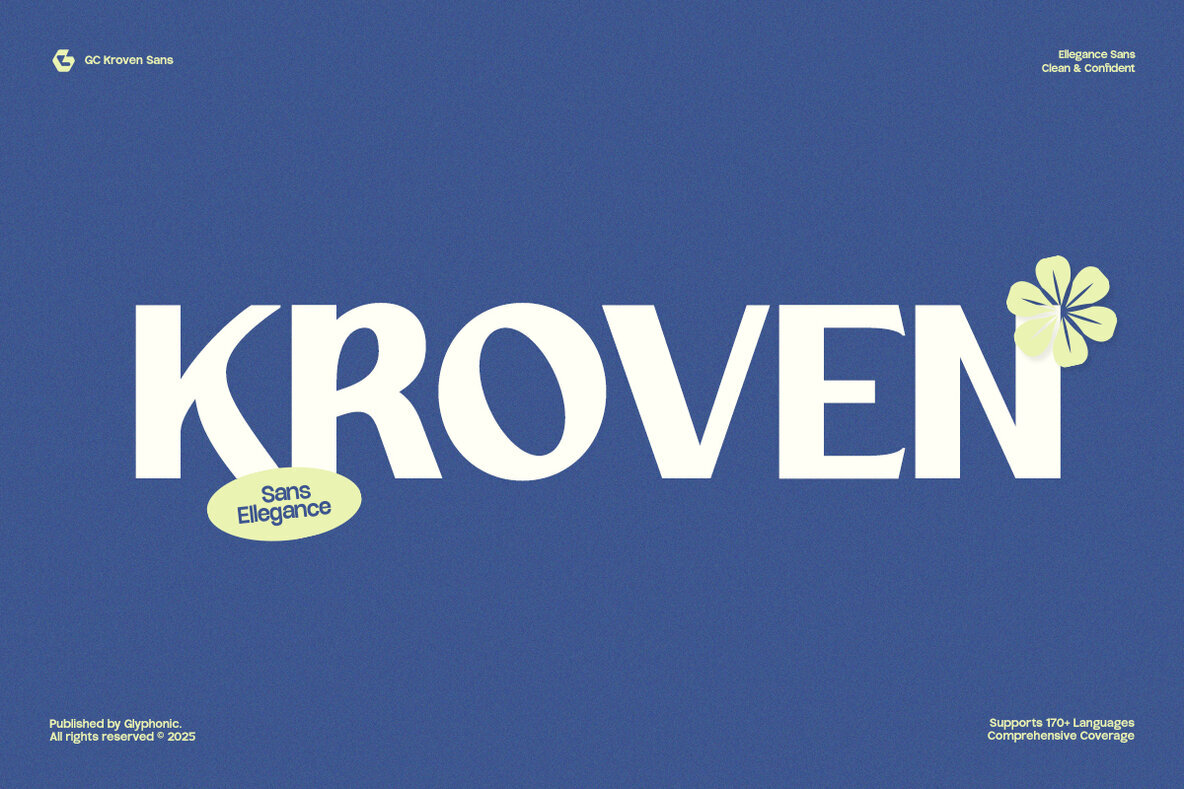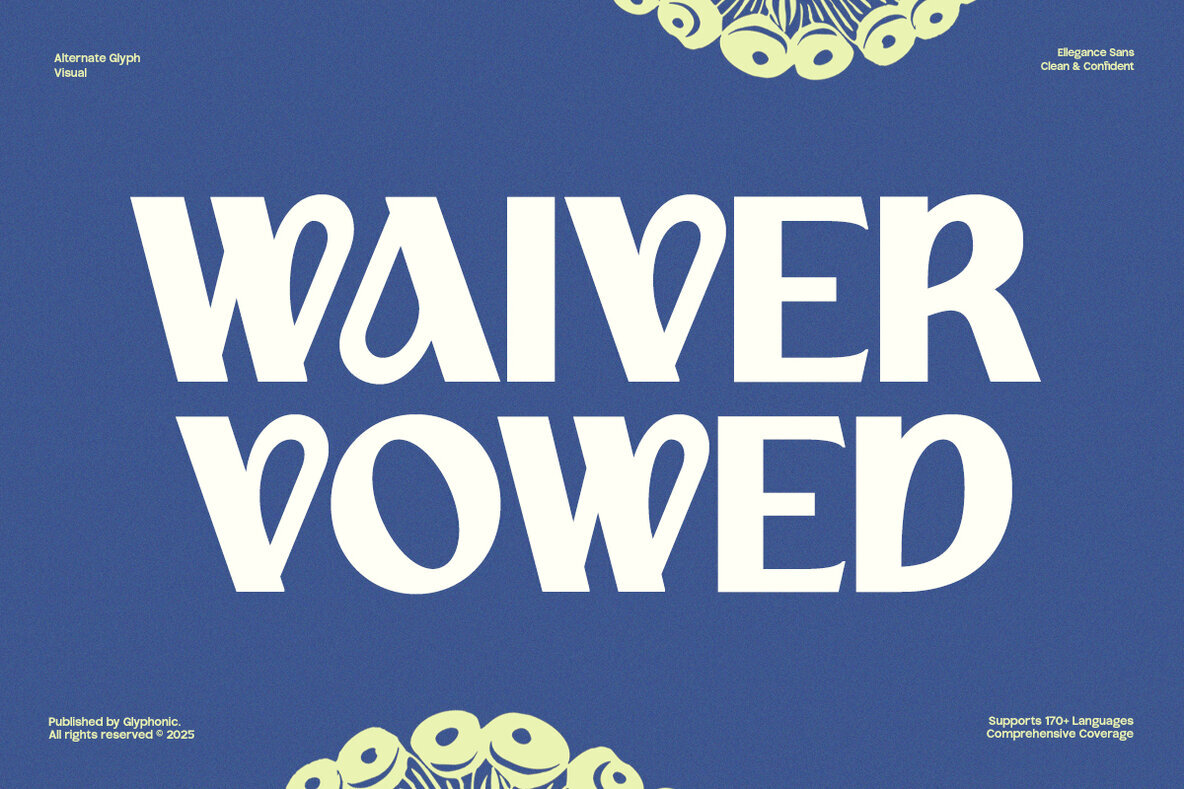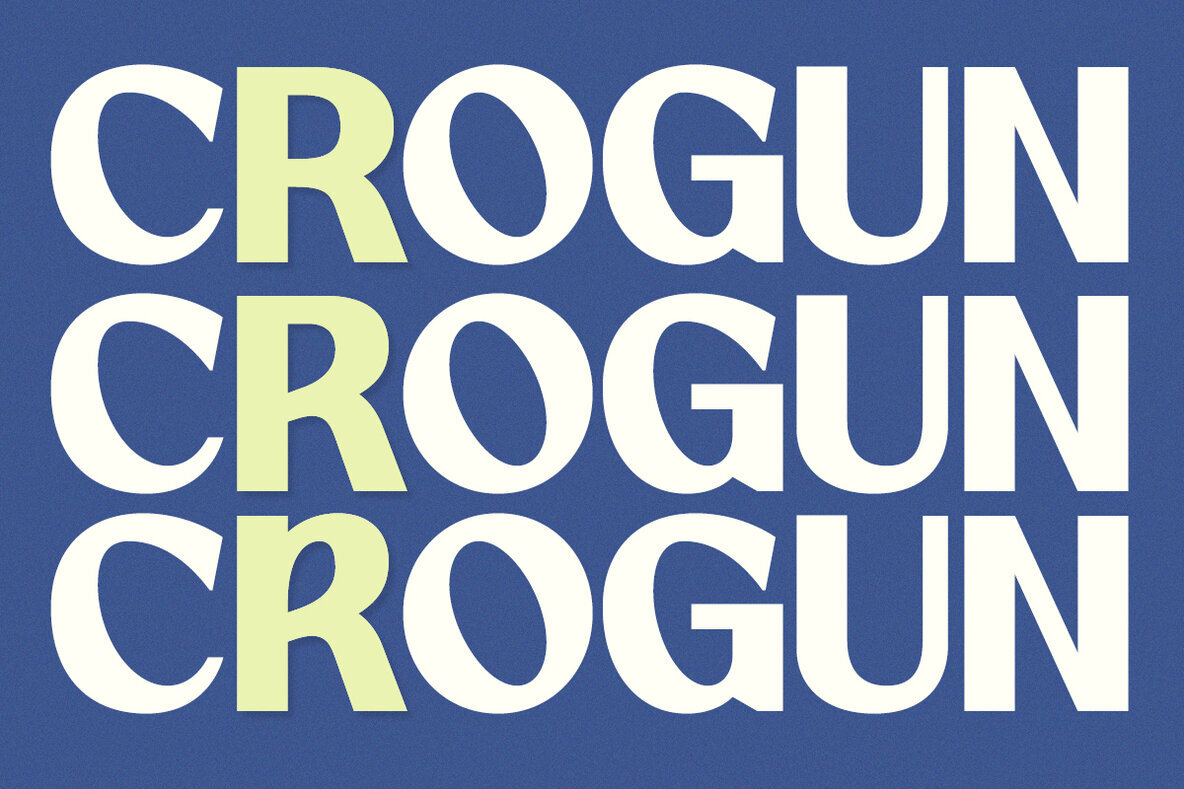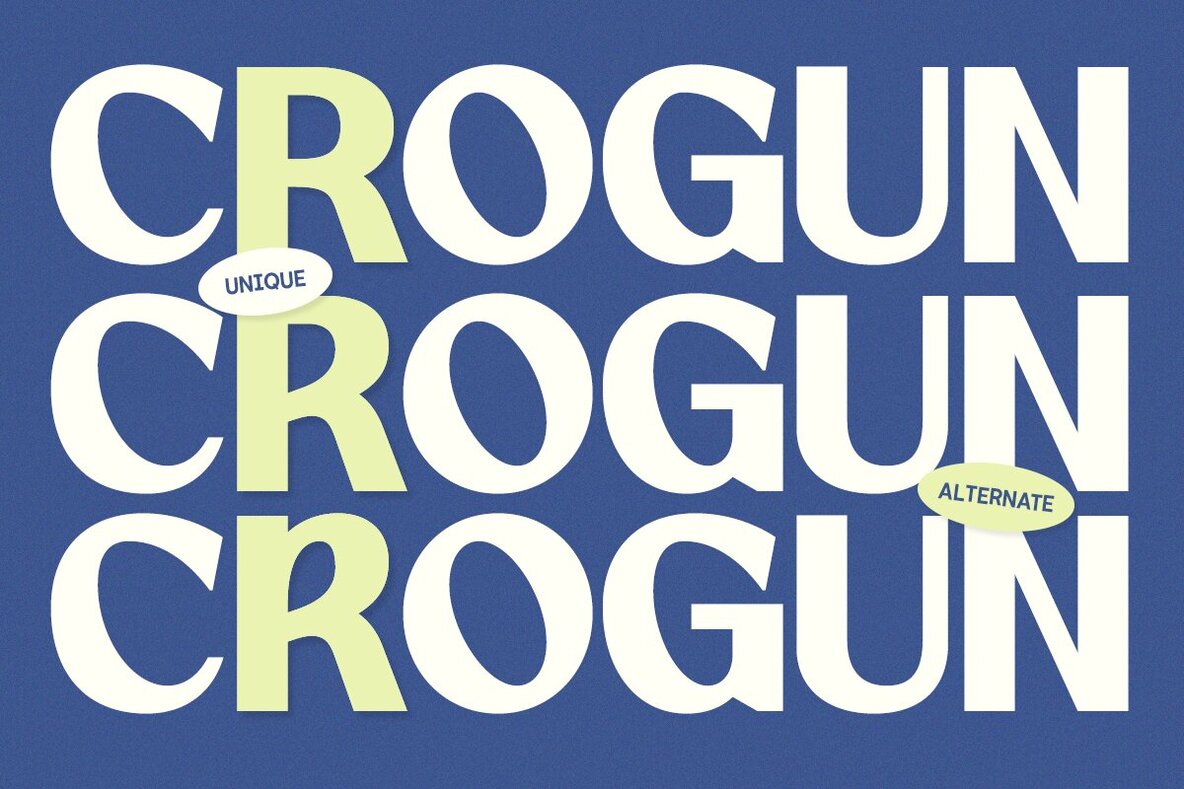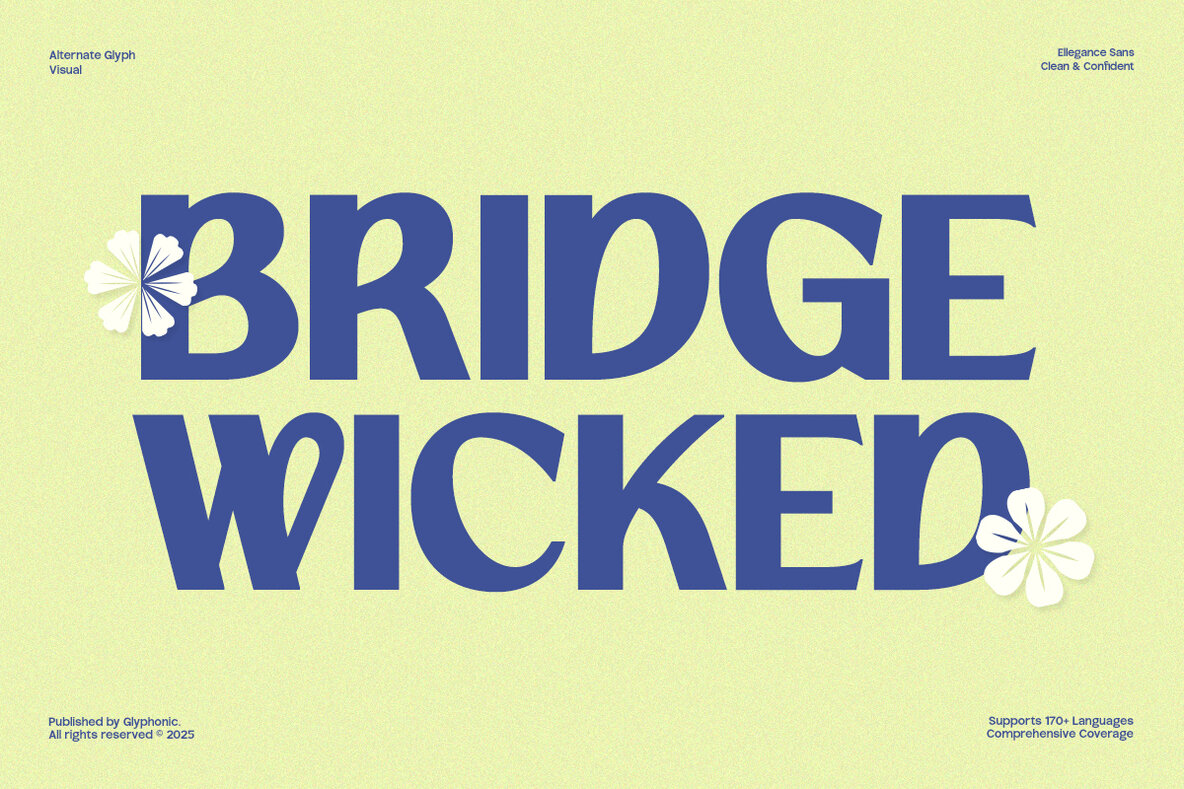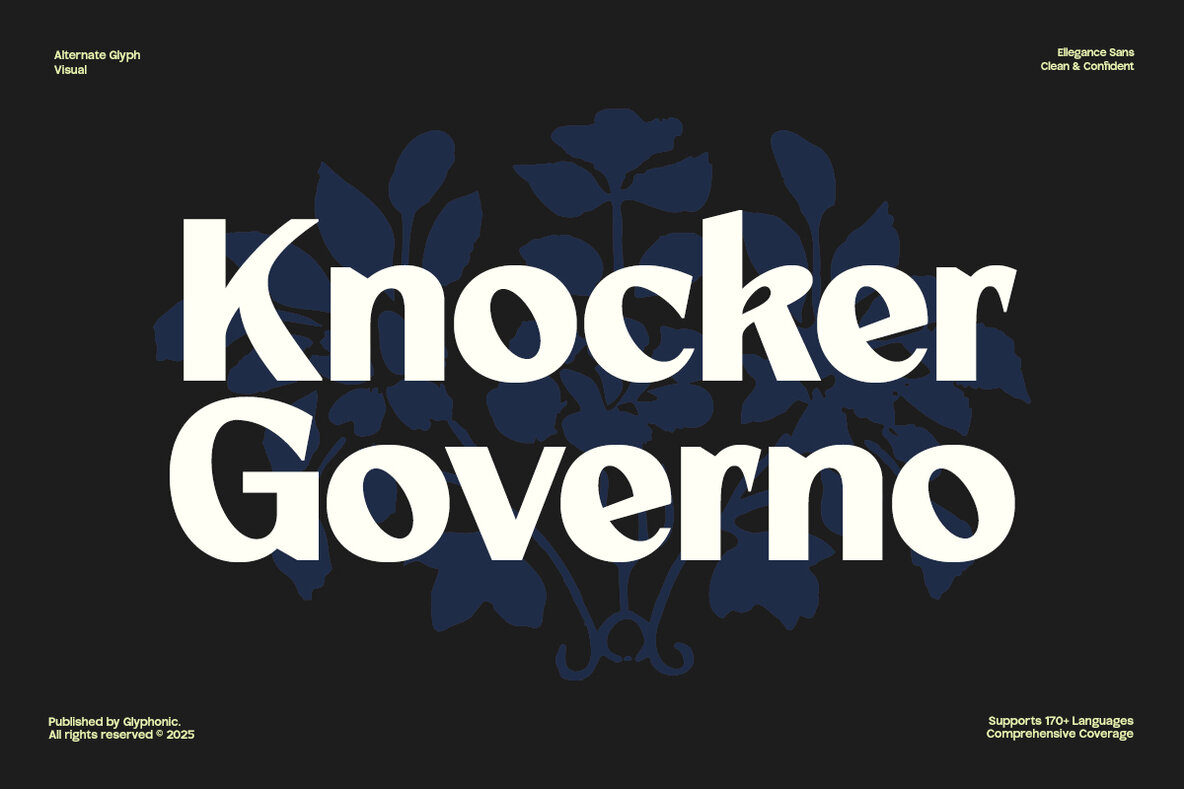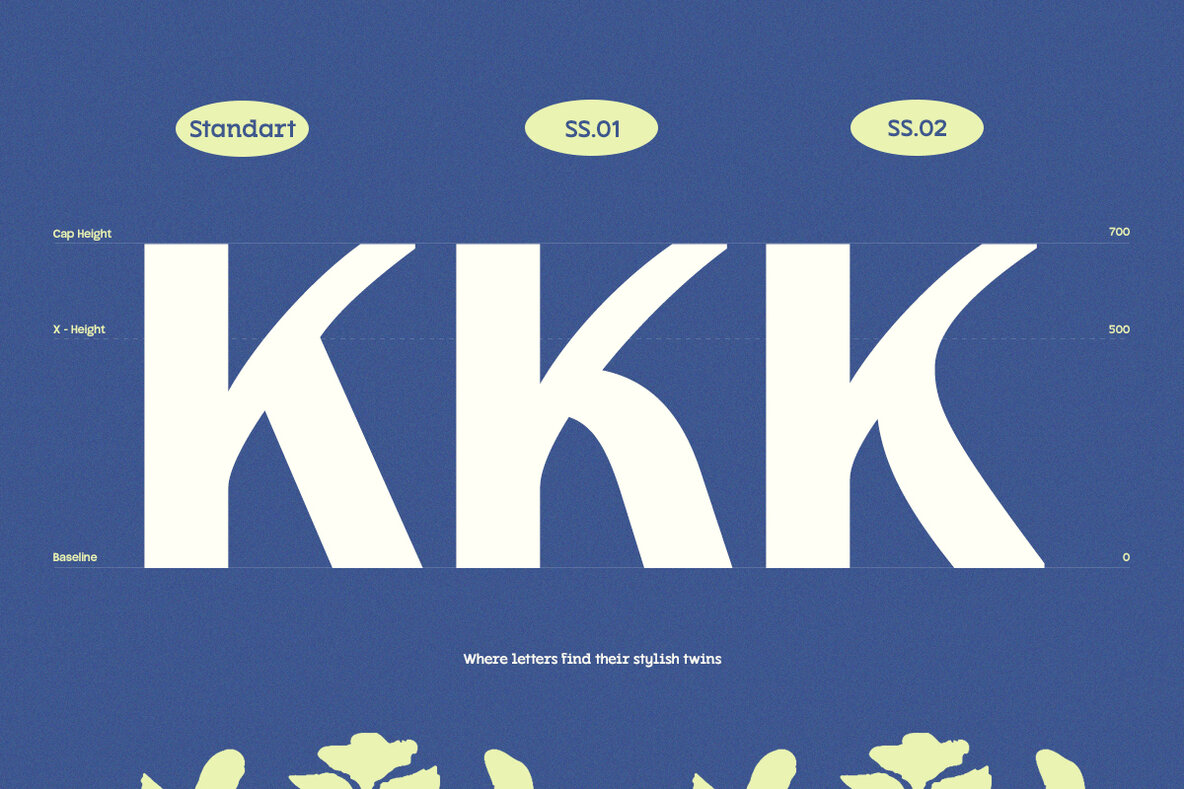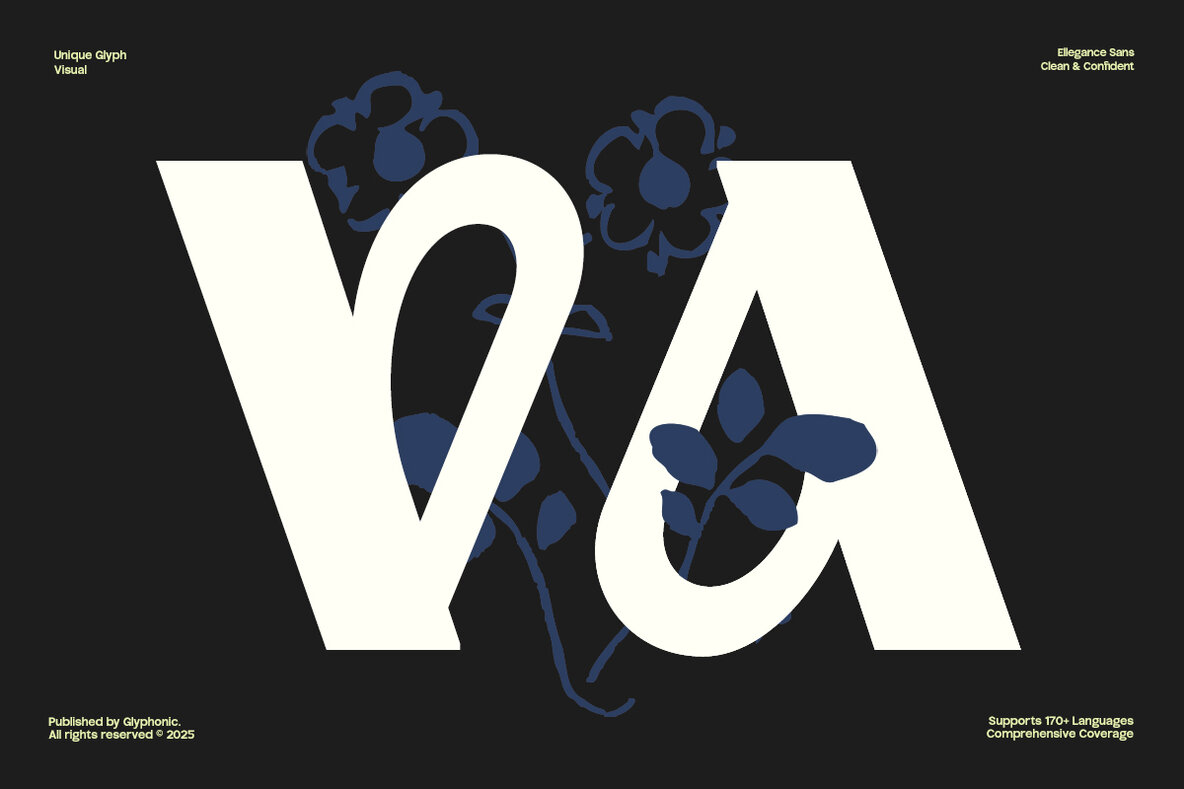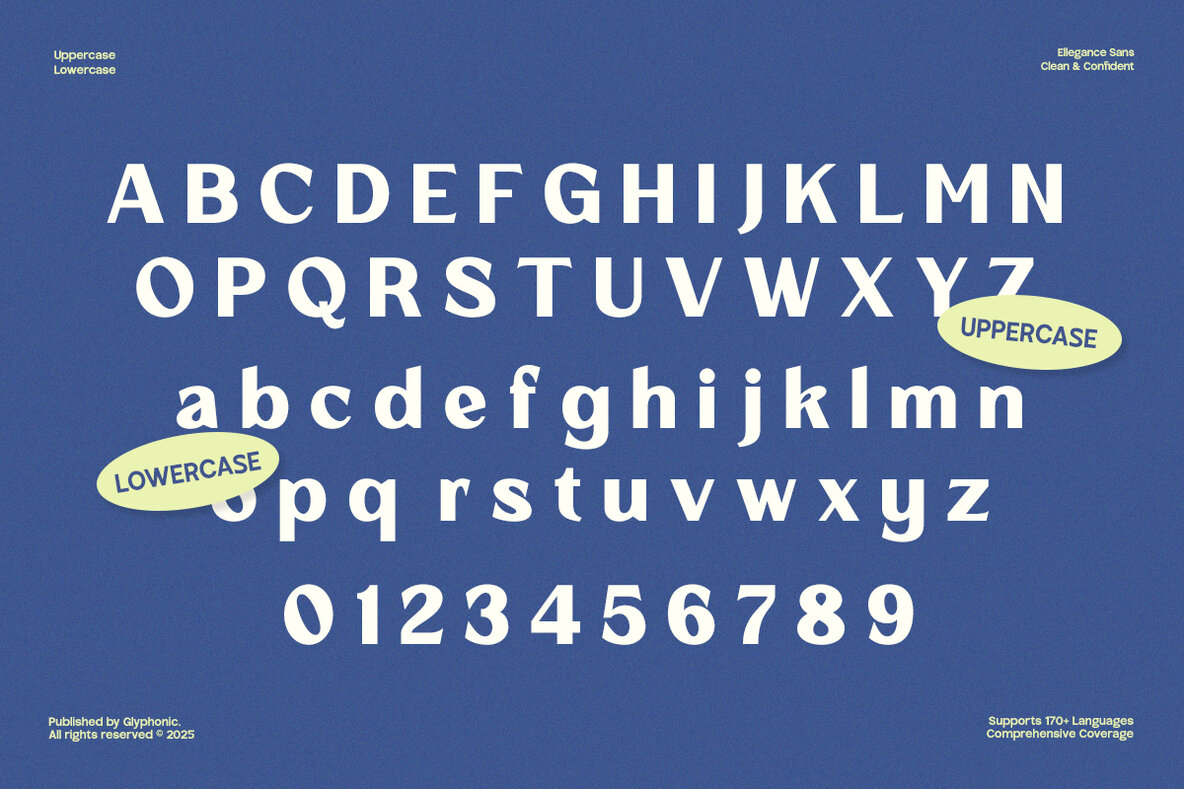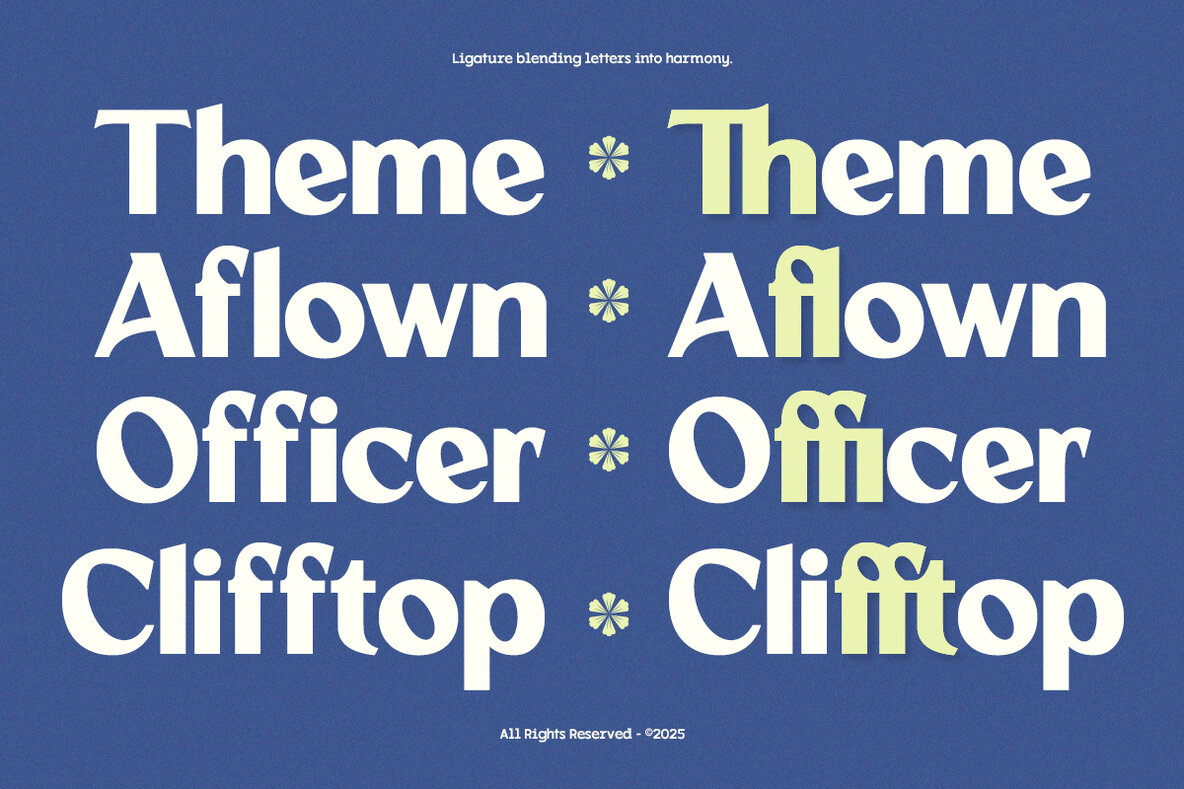
GC Kroven Font
GC KROVEN Extra Bold
GC Kroven is a modern sans serif typeface that masterfully combines timeless elegance with confident clarity. Ideal for headlines, branding, logos, packaging, and editorial layouts, it consistently delivers a bold yet refined statement with every use. Defined by its clean lines, balanced proportions, and subtle geometric nuances, GC Kroven infuses any design with personality and sophistication. Whether crafting fashion, lifestyle, or contemporary branding projects, this typeface provides versatility and enduring style. Features: Create designs that exude boldness, refinement, and timeless appeal with GC Kroven.GC Kroven: A Modern Sans Serif Typeface